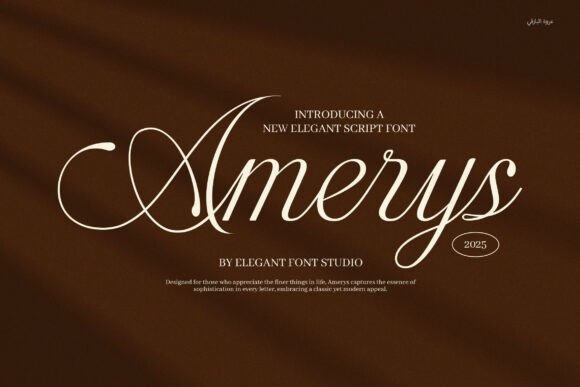
24 Romantic Fonts for Wedding Invitations (2026)
The best fonts for wedding invitations set the tone of the whole day in a single card. Names, dates and details all share one small piece of paper, so the type has to feel romantic and stay perfectly readable. Strong fonts for wedding invitations usually pair a flowing script for the couple’s names with a calm serif or sans for the practical lines.
This guide sorts 24 fonts by use across the suite, romantic scripts, calligraphy, elegant serifs and clean sans, so you can build a coordinated invitation set.
For the dressiest hand-lettering, the calligraphy fonts for wedding invitations guide goes deeper, and the elegant script fonts guide adds more script options.
How to choose fonts for wedding invitations
An invitation suite needs harmony, not variety. A few rules keep fonts for wedding invitations elegant and readable.
• Two fonts, not five: one script for names, one serif or sans for details.
• Names get the script: save the flourish for the couple, keep dates plain.
• Read the small print: set times and addresses in a calm, legible face.
• Proof in print: fine scripts can thin out on textured card, so test it.
Romantic script fonts for wedding invitations
Start here. These romantic script fonts for wedding invitations give the couple’s names a flowing, hand-written centrepiece.
Majestica
Majestica suave script fonts for wedding invitations
Majestica is a suave, lavish script. Among romantic fonts for wedding invitations it gives the couple’s names a flowing, glamorous centrepiece. Keep it to the names and a short accent, with a calm serif for the details. The lavish strokes read best large. For a wedding that wants a glamorous, romantic script for the names, Majestica is a lovely font worth trying.
Wedding Photography
Wedding Photography elegant script fonts for wedding invitations
Wedding Photography is a beautiful, high-quality script. Among fonts for wedding invitations it offers a graceful, classic hand for the names, equally at home on a save-the-date. Keep it to the names and a short line, paired with a clean serif. The flowing forms read romantic at size. For a wedding suite that wants a timeless script for the names, Wedding Photography is a graceful font worth a look.
Relyna
Relyna floral script fonts for wedding invitations
Relyna is a script inspired by blooming flowers and romance. Among romantic fonts for wedding invitations it brings a soft, botanical flourish to the names, perfect for a garden or spring wedding. Keep it to the names and a short accent, with a calm serif for details. The floral forms read tender at size. For a romantic, garden-themed wedding, Relyna is a lovely script worth trying.
Peony
Peony delicate script fonts for wedding invitations
Peony brings timeless grace and delicate beauty. Among fonts for wedding invitations it gives the names a gentle, refined script with a soft romance. Keep it to the names and a short line, paired with a clean serif. The delicate forms read tender and want a comfortable size. For a wedding that wants a soft, pretty script for the names, Peony is a graceful font worth a look.
Amerys
Amerys elegant script fonts for wedding invitations
Amerys is an elegant script that blends classic beauty with a modern touch. Among romantic fonts for wedding invitations it reads graceful yet current, a flexible hand for the names. Keep it to the names and a short accent, with a calm serif for the details. The flowing forms read romantic at size. For a wedding suite that wants a modern-classic script, Amerys is a lovely font worth trying.
Midnight Wedding
Midnight Wedding handwritten script fonts for wedding invitations
Midnight Wedding is a handwritten font with a relaxed, marker-drawn feel. Among fonts for wedding invitations it suits a modern, informal celebration that wants warmth over formality. Keep it to the names and a short accent, with a clean sans for details. The hand-drawn forms read friendly. For a casual or modern wedding that wants a relaxed hand-written script, Midnight Wedding is a charming font worth a look.
Wedding Beach
Wedding Beach marker script fonts for wedding invitations
Wedding Beach is a handwritten font drawn with a marker, easy and relaxed. Among romantic fonts for wedding invitations it suits a beach or destination wedding that wants a laid-back, hand-made feel. Keep it to the names and a short accent, with a clean sans for details. The marker forms read casual and warm. For a relaxed, seaside wedding, Wedding Beach is a fun script worth trying.
Calligraphy fonts for the couple’s names
For the dressiest names, these calligraphy fonts for wedding invitations bring formal, flourishing elegance.
Violyn Wedding Thivoria
Violyn Wedding Thivoria calligraphy fonts for wedding invitations